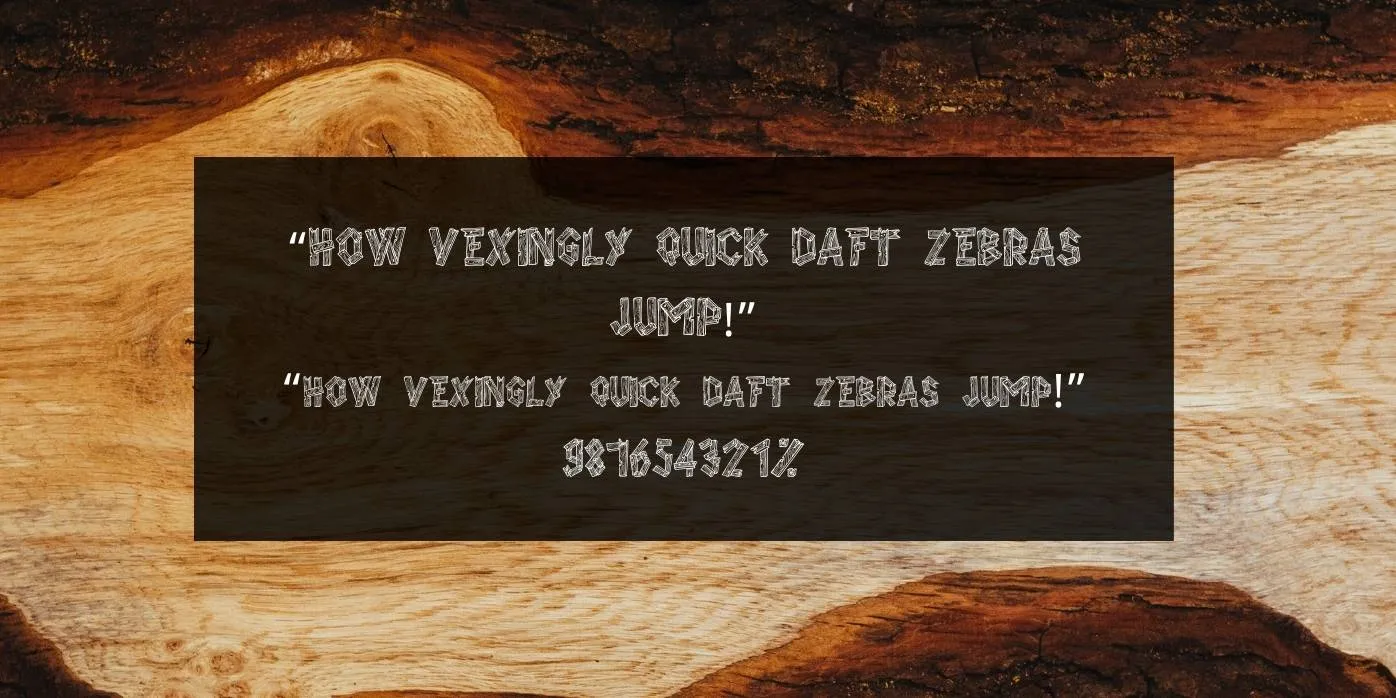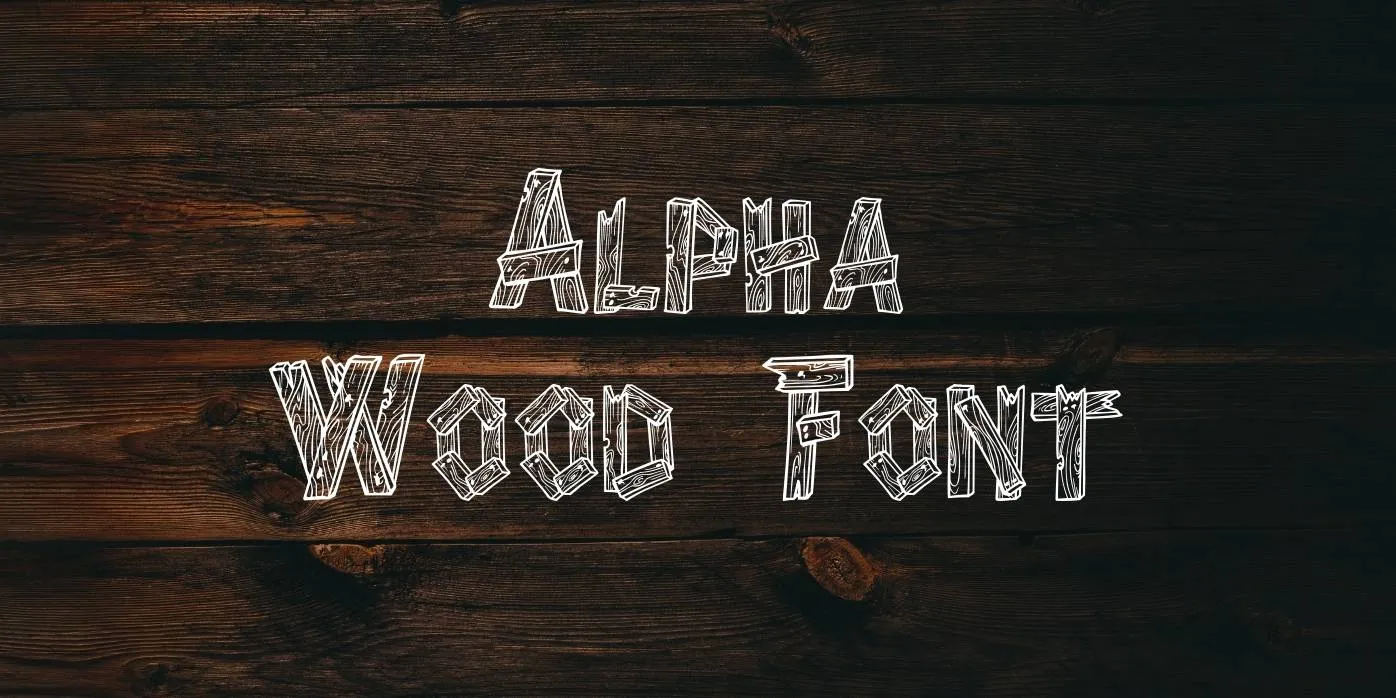
Alpha Wood Font
In this post, we are consulting about an attractive family that is known as Alpha Wood Font. It belongs to the Brush font family. The creator of this typeface was Claude. This stunning font has available in only one style that contains more than 200 characters.
So, you can easily create awesome text layouts by using this amazing family. Also, it supports many international languages. You can use this stylish font for commercial and personal purposes. Its copy and paste function is perfect for various designs.
This cozy typeface includes unique features that make it more demandable in the market. This is an all-caps typeface that supports almost all international languages. So, you can use this family for making international projects without any hesitation. Its generator tool is the best option for various graphic designs.